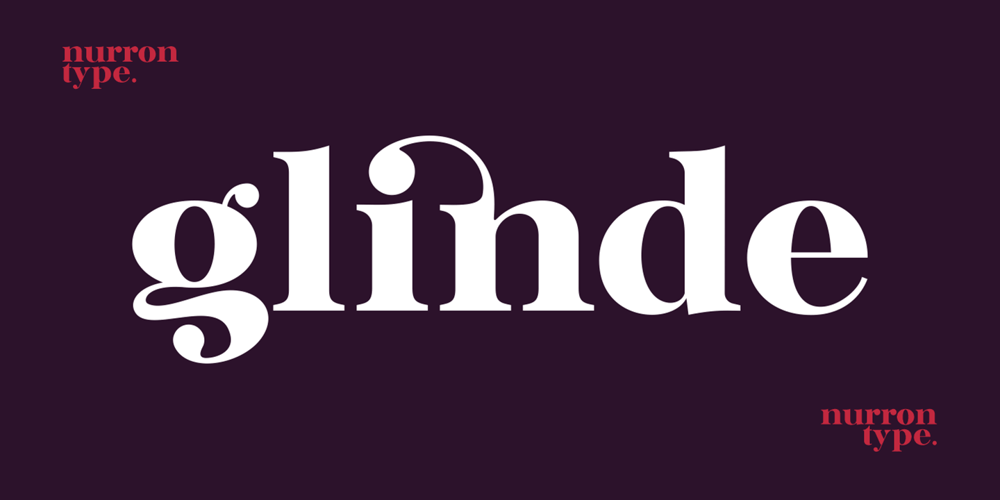
Glinde Font Family was designed by Nurron Shodiqin and published by Nurrontype. Glinde contains 1 styles and family package options. Glinde is a bold serif font with extra ligature. It was design to be a versatile display font. Perfect for your instagram post title, headline on your cover magazine, and yes in your wedding invitation project also. A bold serif with neat ligature, plus some alternate and stylistic, ready to escalate your next project.